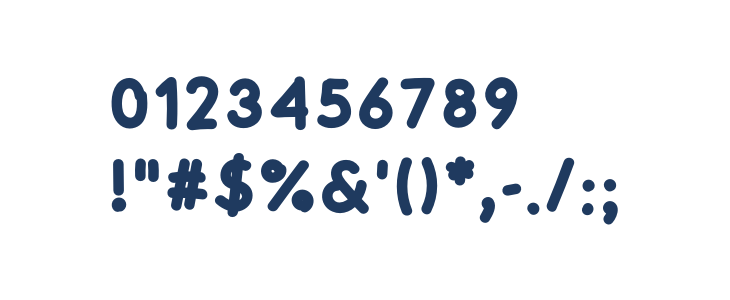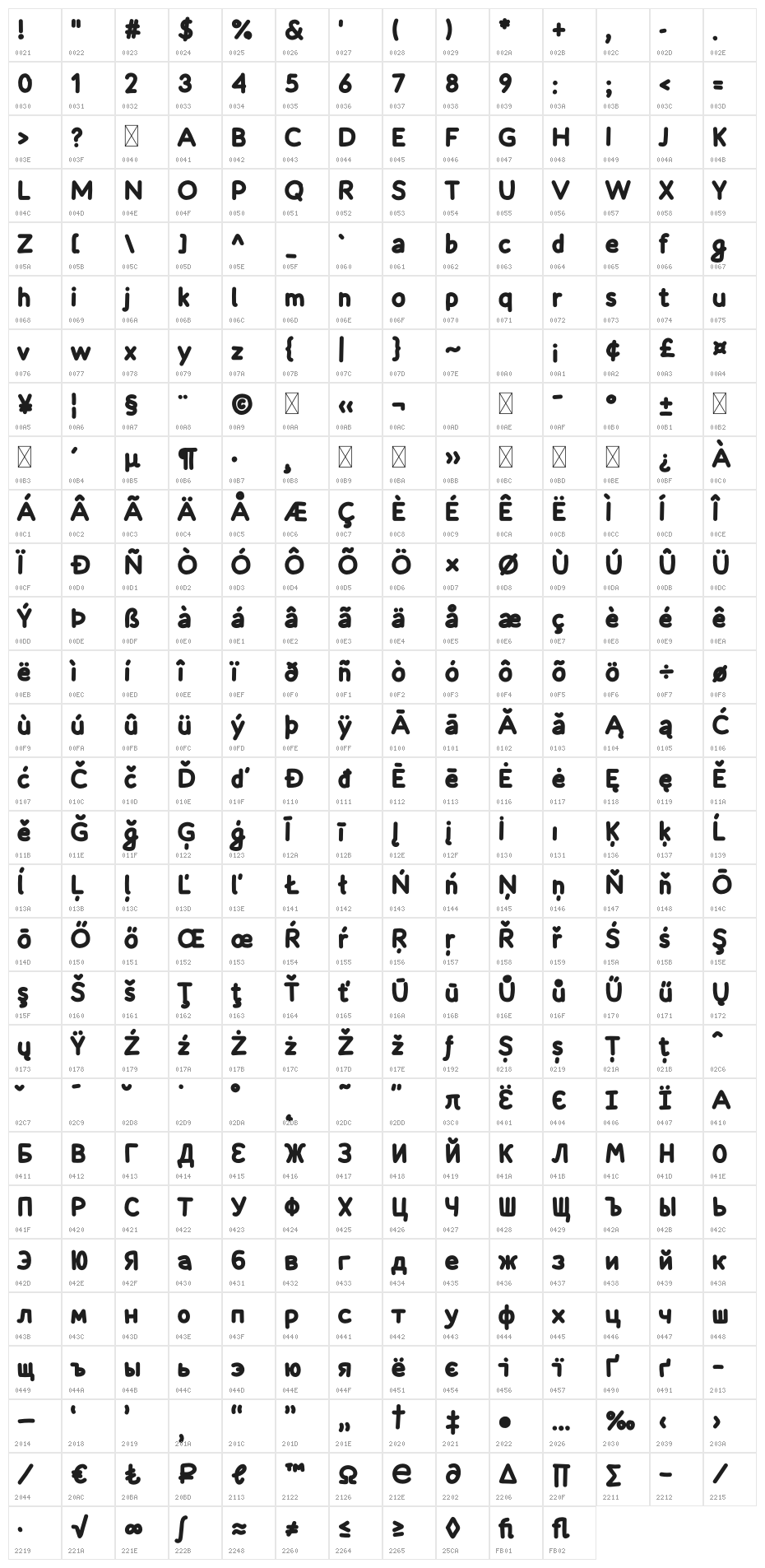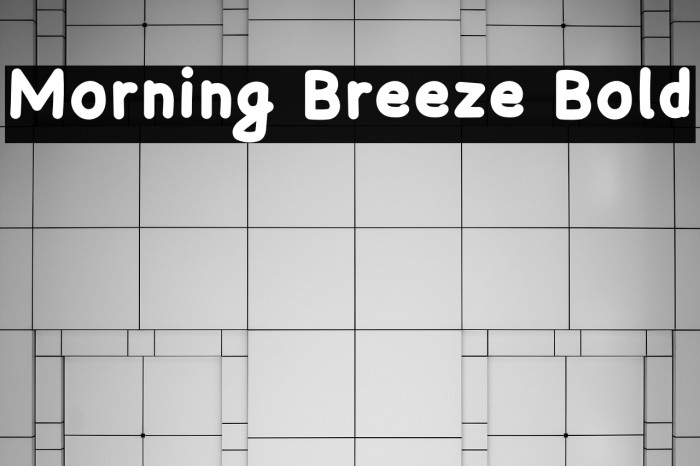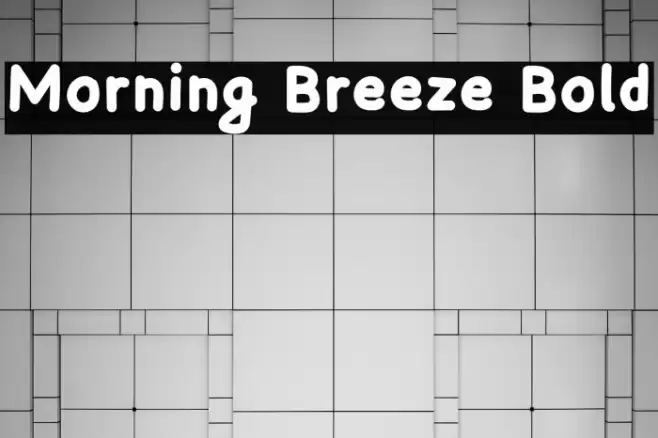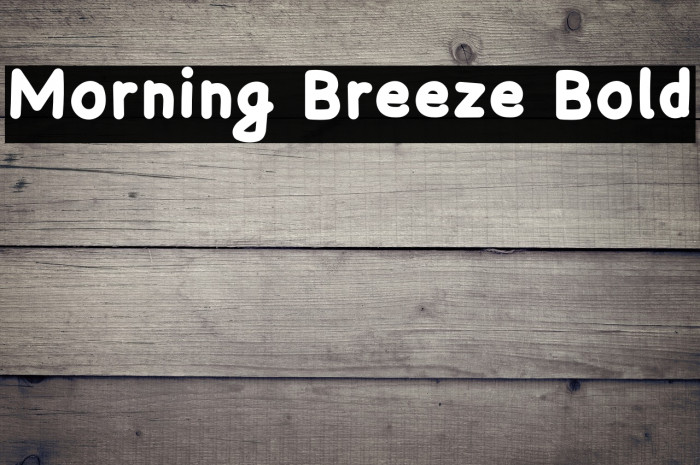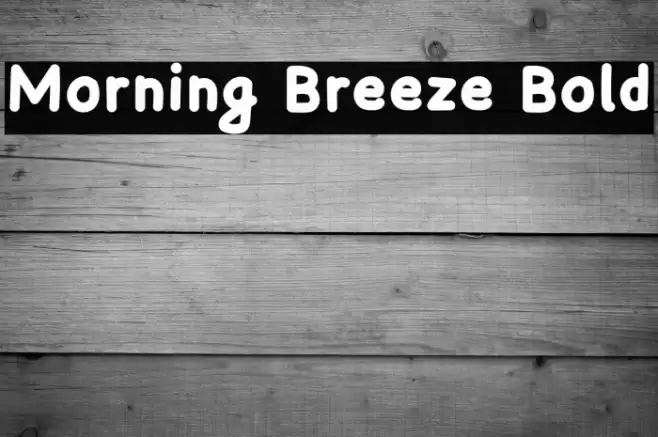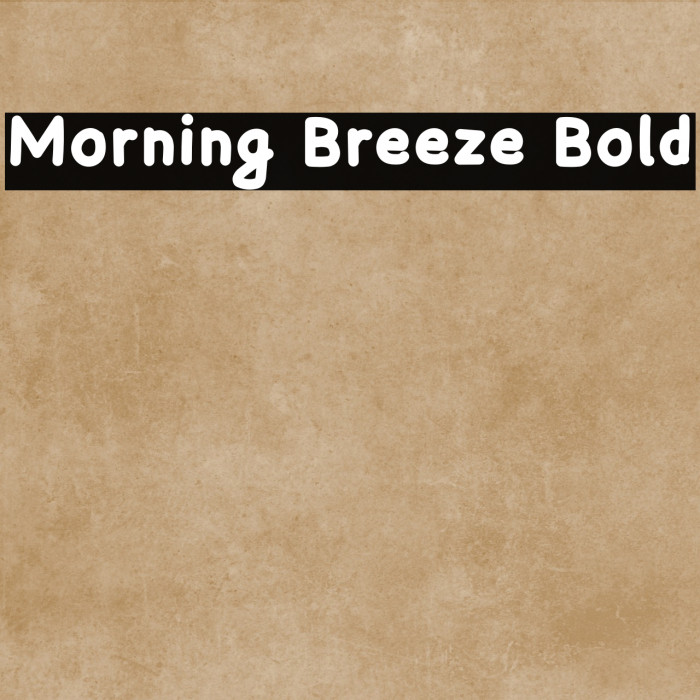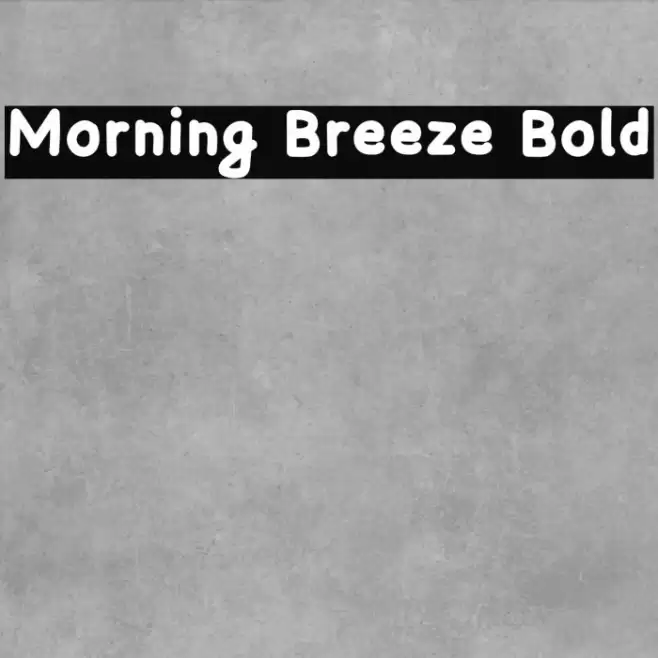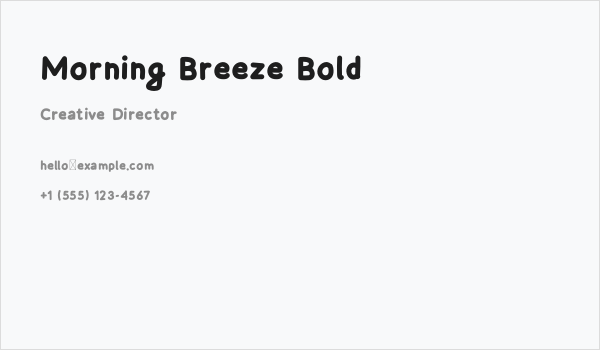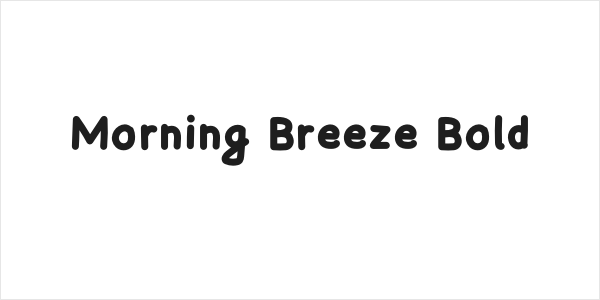
Morning Breeze Bold Font
Morning Breeze Bold Description
This font features a bold and playful design with rounded edges and a friendly appearance. The characters are thick and well-defined, providing a strong visual impact. The uppercase and lowercase letters maintain a consistent style, with a slightly whimsical touch that adds character. The numerals are clear and easy to read, matching the overall boldness of the font. Special characters are included, maintaining the same playful and bold aesthetic. This font is ideal for projects that require a fun and approachable look.
| Proposed Projects | Ideal for children's books, playful branding, posters, and social media graphics. |